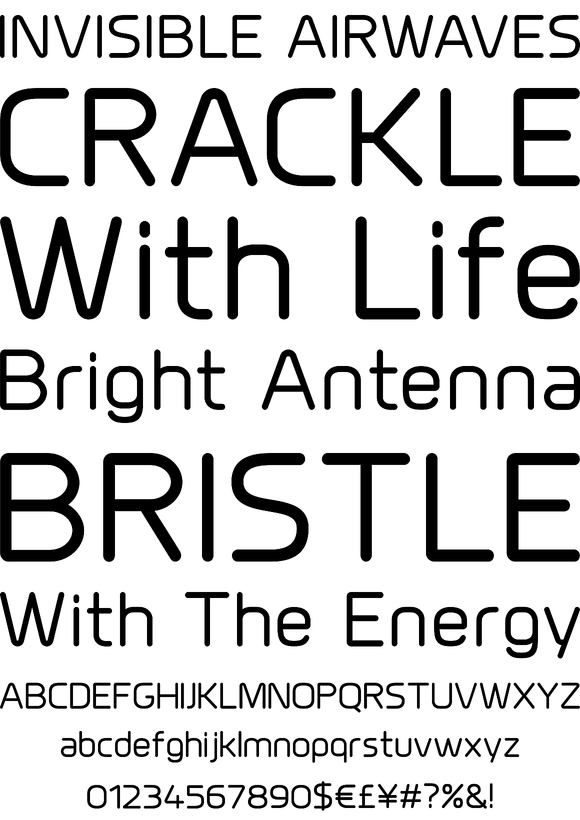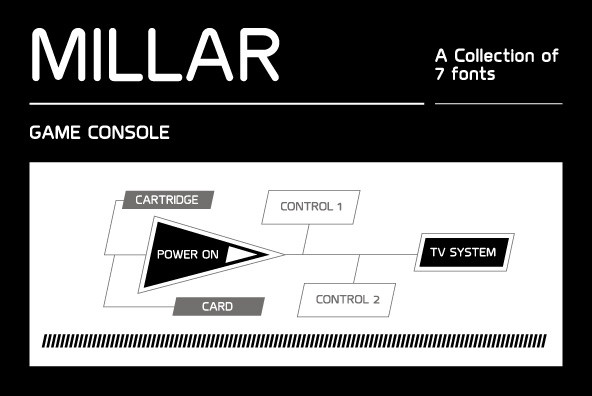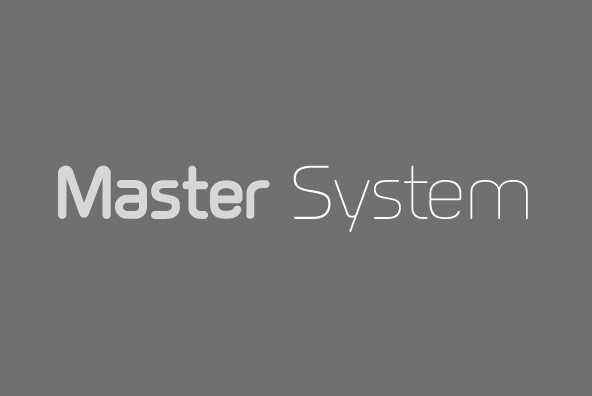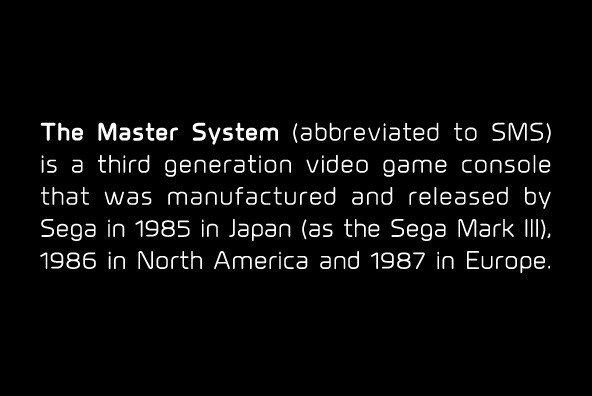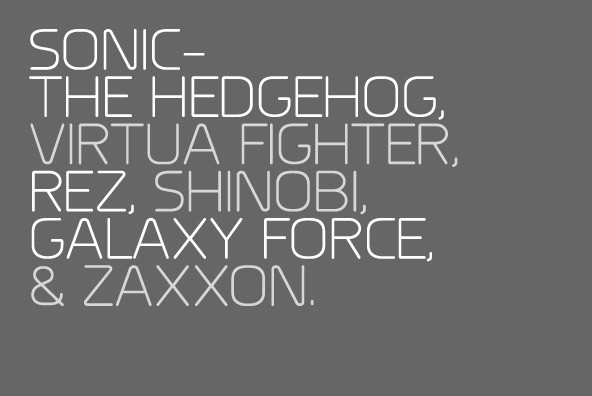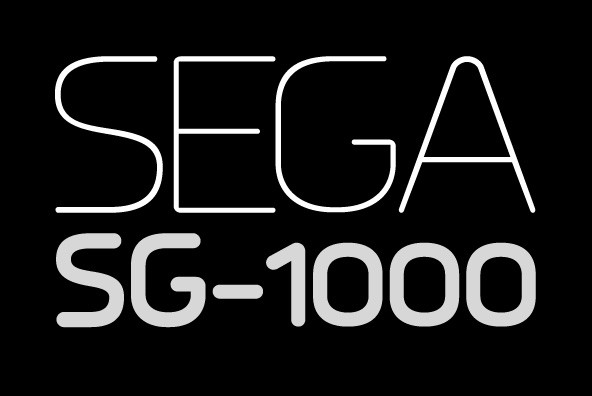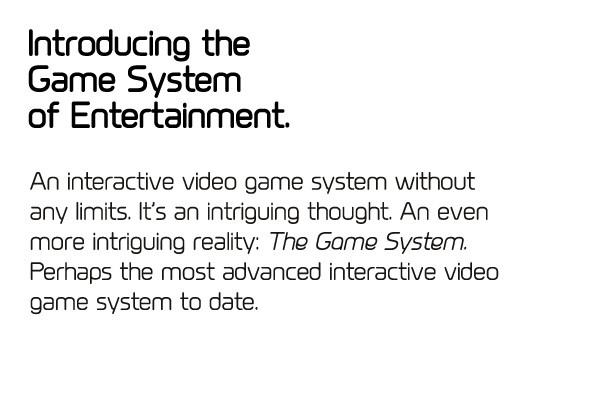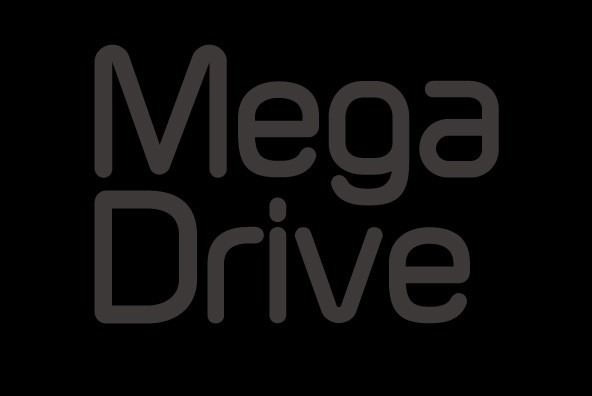
An elegant monoline typeface with smooth corner detailing. The simple linear design is best suited to identity, editorial and on screen uses. Details include 7 weights, a complete character set, manually edited kerning and Euro symbol.